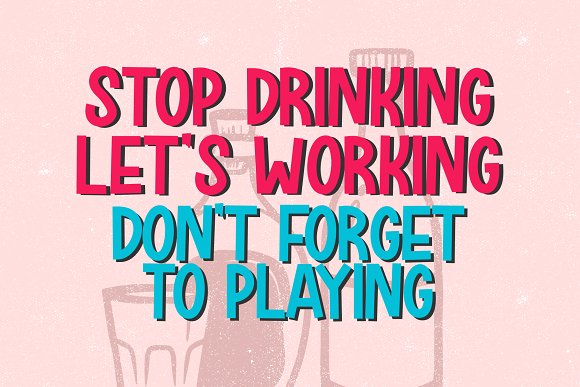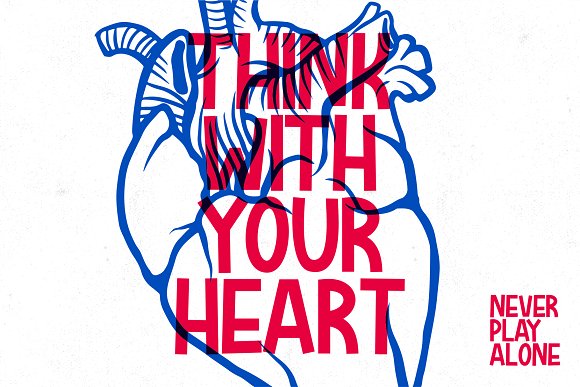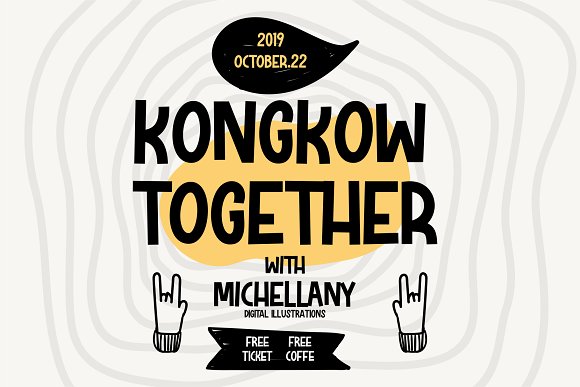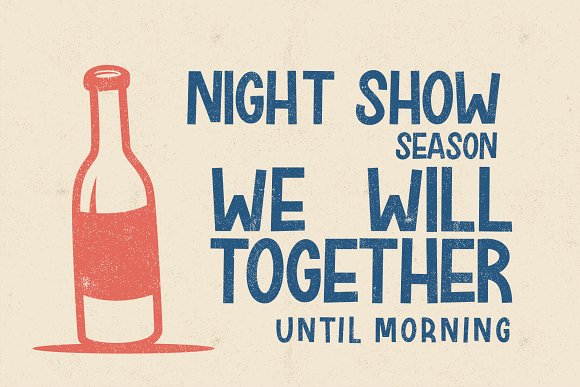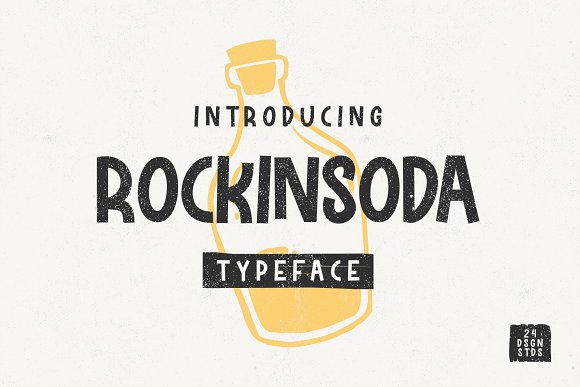
Rockinsoda Typeface
Hi Everyone! Rockinsoda Font – a display font, which will be good for all your design needs. It is designed and shared by holis.mjd. Rockinsoda font is display font with a child’s handwriting style with little improfisation on uppercase mode, although these fonts are all uppercase fonts. This font also has halternate on lowecase letters that can be used for the last letter or word cover. This font is perfect for something related to food, children, kids illsutrations, book titles, website title, writing on video, or anything you can try to gain experience in graphic design needs.